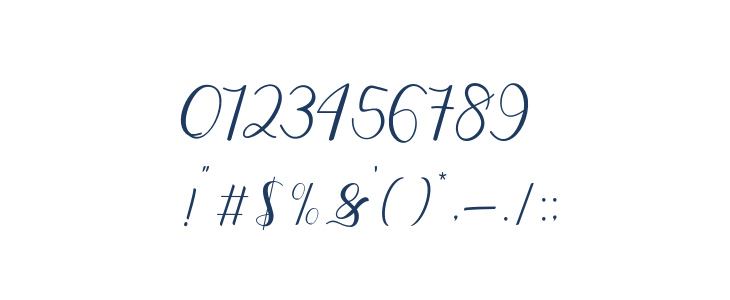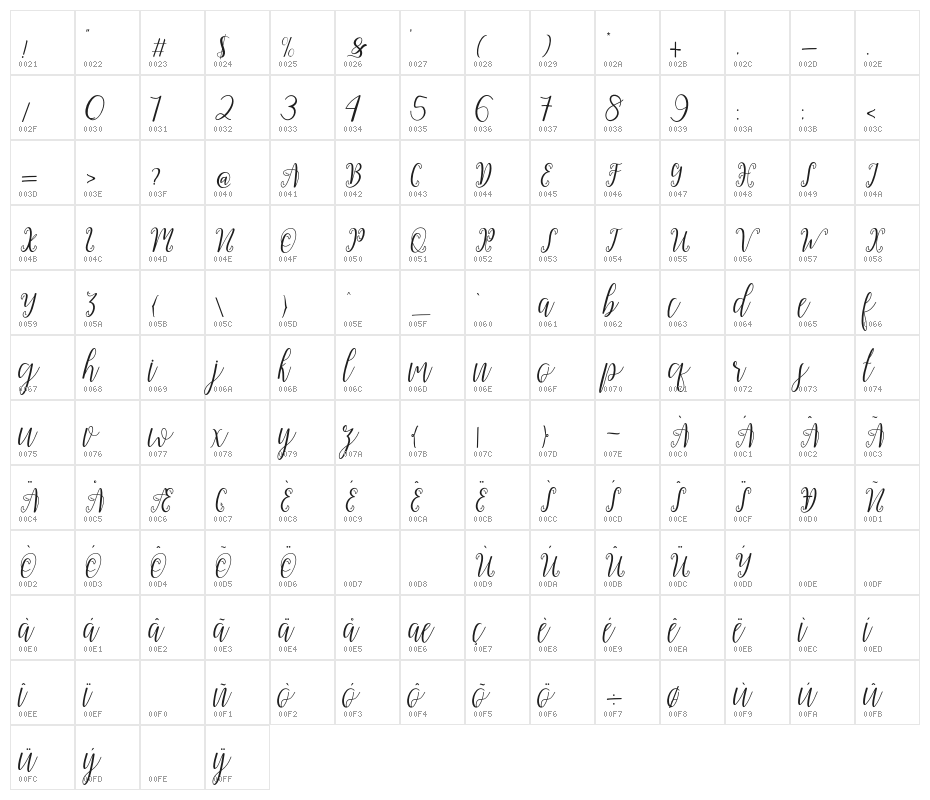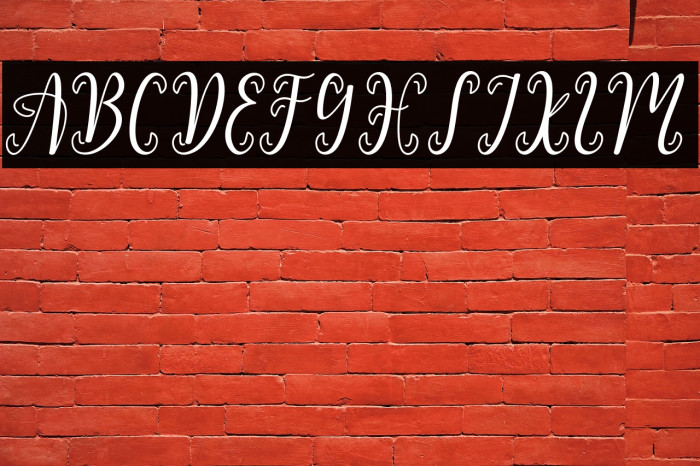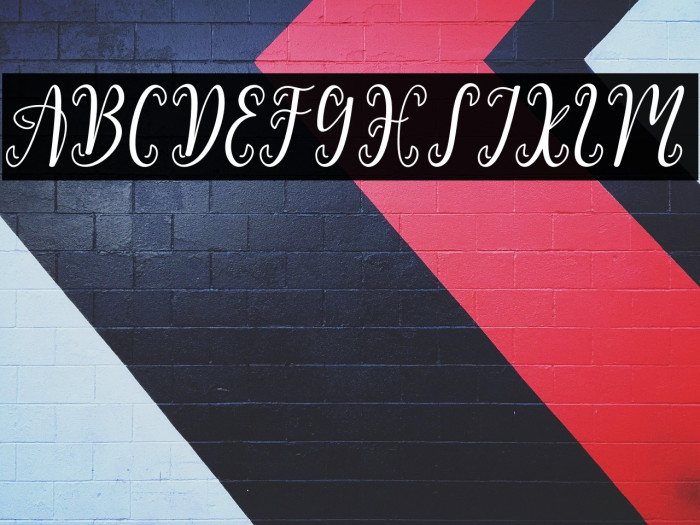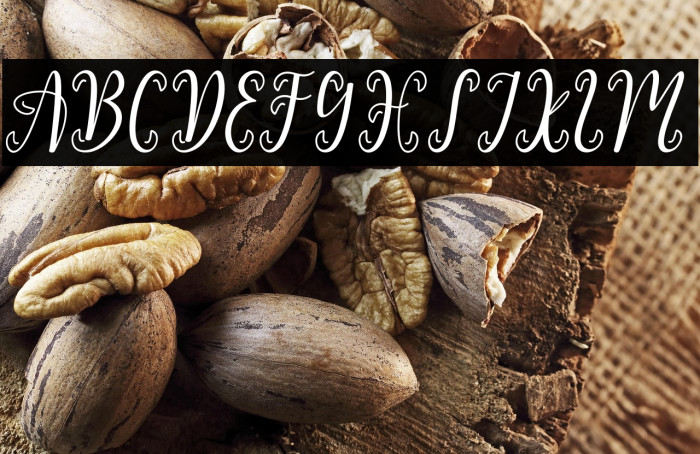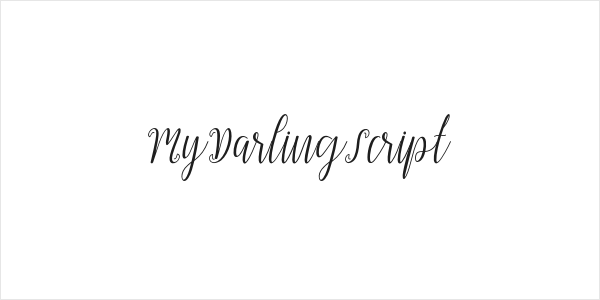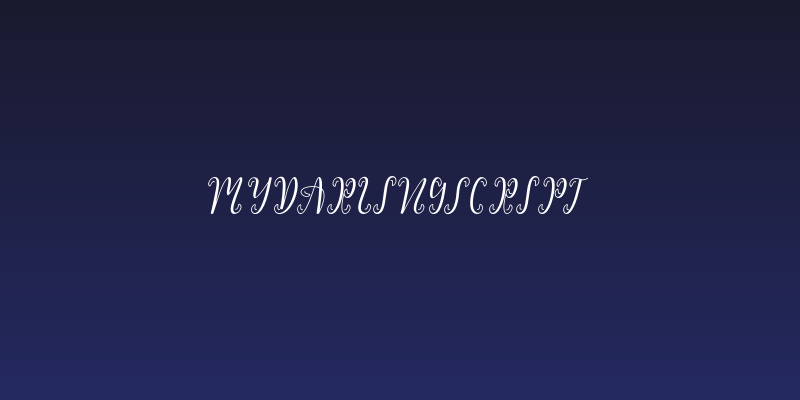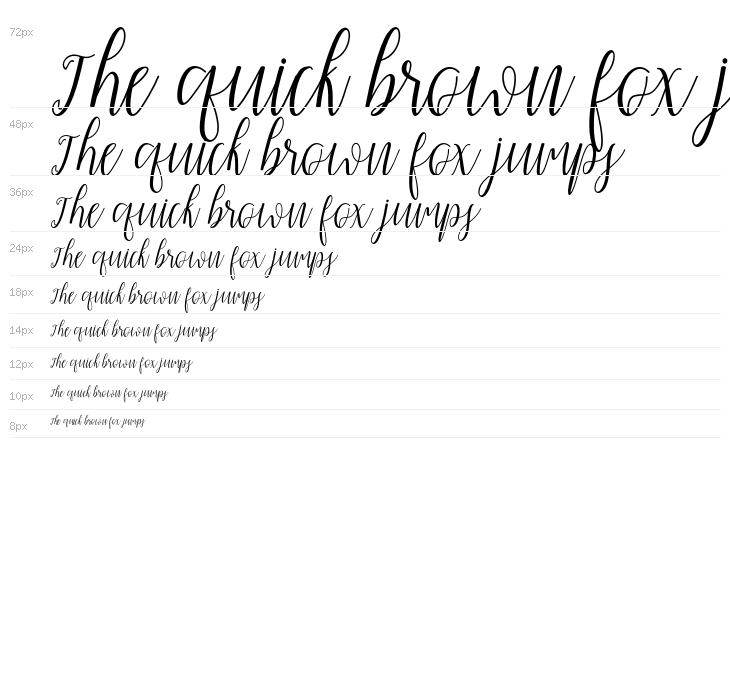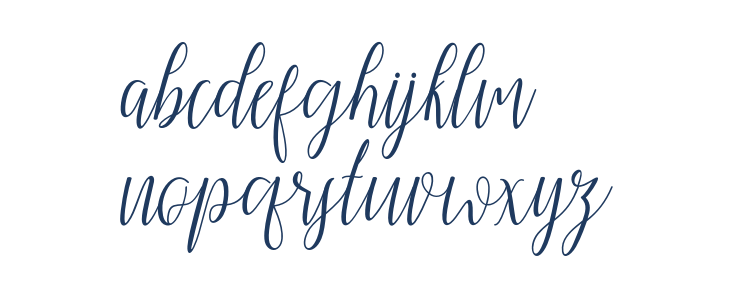
MyDarlingScript Font
MyDarlingScript Description
This elegant script font features flowing, cursive letters with a graceful and romantic style. The uppercase letters are adorned with delicate swirls and loops, giving them a decorative flair. The lowercase letters maintain a smooth and connected appearance, enhancing the font's fluidity. Numbers and special characters are designed with the same attention to detail, ensuring consistency throughout. The font's overall look is sophisticated and artistic, making it ideal for projects that require a touch of elegance and charm.
| Proposed Projects | Perfect for wedding invitations, greeting cards, branding, and elegant packaging designs. |